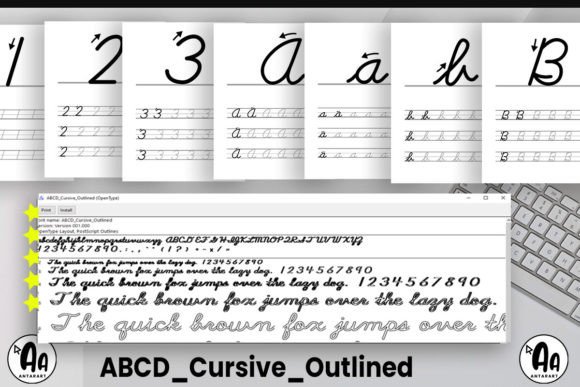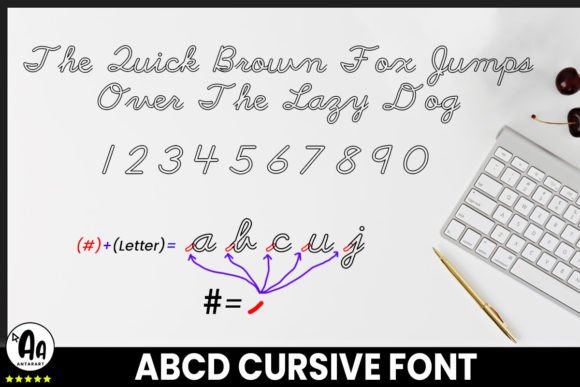
Unlocking the Art of Cursive Handwriting
Have you ever sat down with a pen and paper, and suddenly found yourself lost in the flow of creating something beautiful? For many of us, handwriting is a therapeutic escape from the digital world. But, what if you could harness that same creativity to teach or learn cursive handwriting in a fun and engaging way?
| 📌 Product Name | Abcd Cursive Outlined Font |
| 👤 Author | AntarArt |
Enter the Abcd Cursive Outlined Font, a versatile tool designed to help you create thousands of worksheets using any software. This font is a treasure trove for educators, designers, and anyone looking to make learning cursive handwriting an enjoyable experience. With its unique outlined design, it’s perfect for creating interactive and visually appealing materials that bring this essential skill to life.
As a designer, you’ll appreciate the Abcd Cursive Outlined Font’s flexibility and customizability, allowing you to tailor your worksheets to suit different learning styles and ages. Whether you’re creating educational materials or simply want to improve your own handwriting, this font is an invaluable resource that’s sure to bring a smile to your face.
Abcd Cursive Outlined Font Key Features
- Font Style: Cursive Outlined, with a touch of elegance and sophistication.
- Unique Characteristics: The Abcd Cursive Outlined Font features connected letterforms, swashes, and flourishes, adding a touch of whimsy and personality to your designs.
- Language Support: Supports a wide range of languages, including Latin, Cyrillic, and Greek alphabets, making it a versatile choice for global designs.
Designer Review: Abcd Cursive Outlined Font
Overall, I think the Abcd Cursive Outlined Font is a solid choice for designers looking for a elegant and sophisticated look for their projects. ✨ It has a unique, hand-drawn feel that can add a touch of personality to any design. The font is well-suited for titles, headings, and other display text where you want to make a statement.
- The Abcd Cursive Outlined Font has a high level of customization options, making it easy to adjust the style to fit your design needs.
- The font is highly legible, even at small font sizes, which is a must for any design project.
- The cursive outline effect adds a level of sophistication and elegance to the font, making it perfect for luxury brands or high-end designs.
- The Abcd Cursive Outlined Font may not be the best choice for body text or large blocks of text, as the cursive outline effect can become overwhelming and difficult to read.
- The font may not be as versatile as other fonts, and may not work well in certain design contexts.
- The Abcd Cursive Outlined Font is a relatively new font, and as such, it may not have the same level of support or compatibility as more established fonts.
Overall, I think the Abcd Cursive Outlined Font is a great choice for designers looking for a unique and sophisticated look. While it may have some limitations, the font’s customization options, high legibility, and elegant design make it a valuable addition to any design project.
Abcd Cursive Outlined Font Practical Application Guide
To get the most out of Abcd Cursive Outlined Font, try combining it with other fonts for a unique look, or use it with bold or italic styles for added emphasis.
Use the font to create eye-catching titles or headings, and pair it with a simpler font for body text.
Abcd Cursive Outlined Font is ideal for:
Food and beverage branding
Children’s book illustrations
Any project that requires a whimsical and playful touch